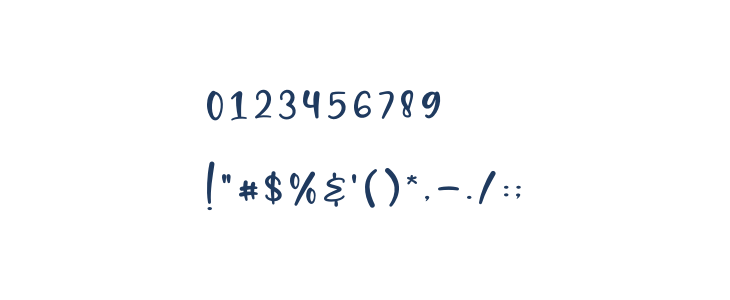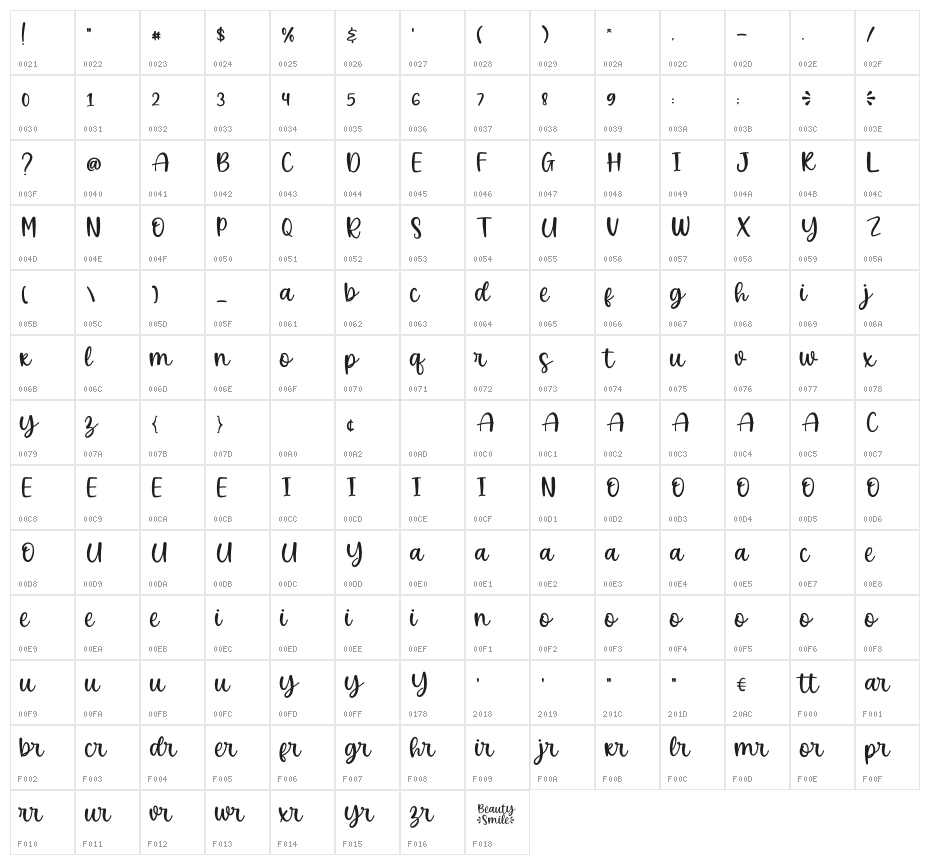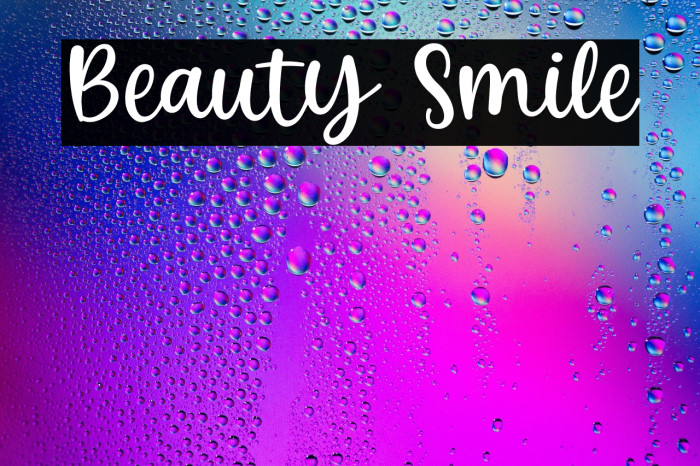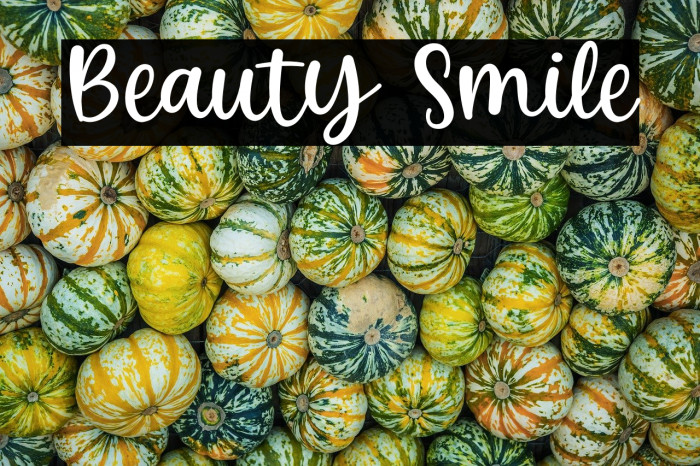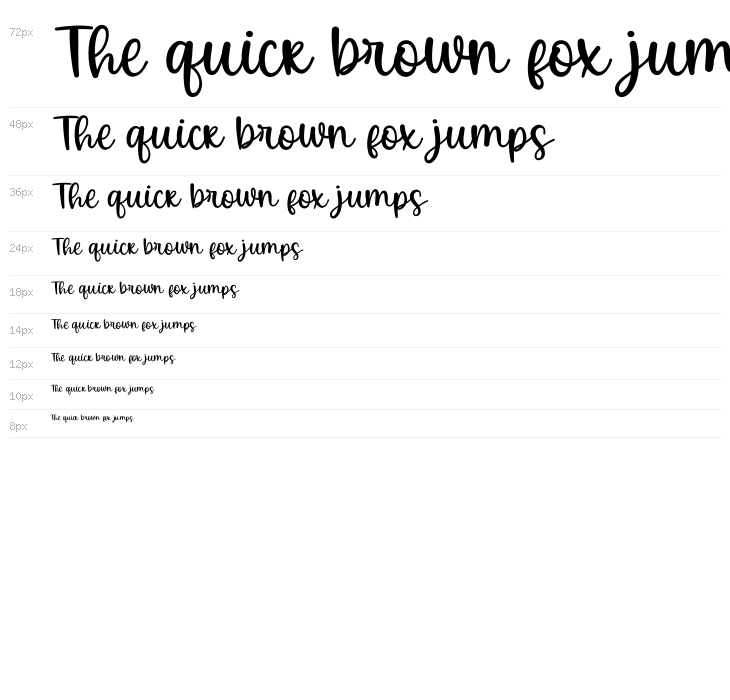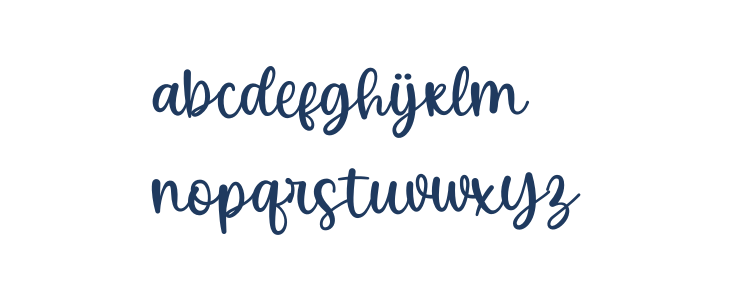
Beauty Smile Font
Beauty Smile Description
This font features a playful and casual handwritten style, characterized by its smooth, flowing curves and slightly irregular letterforms. The uppercase letters are bold and rounded, with a friendly appearance, while the lowercase letters maintain a consistent flow, enhancing readability. The numbers are clear and distinct, matching the overall style of the alphabet. Special characters are well-integrated, maintaining the font's cohesive look. This font's charm lies in its ability to convey a sense of warmth and approachability, making it suitable for a variety of creative projects.
| Proposed Projects | Ideal for greeting cards, invitations, social media graphics, and branding projects that require a personal touch. |